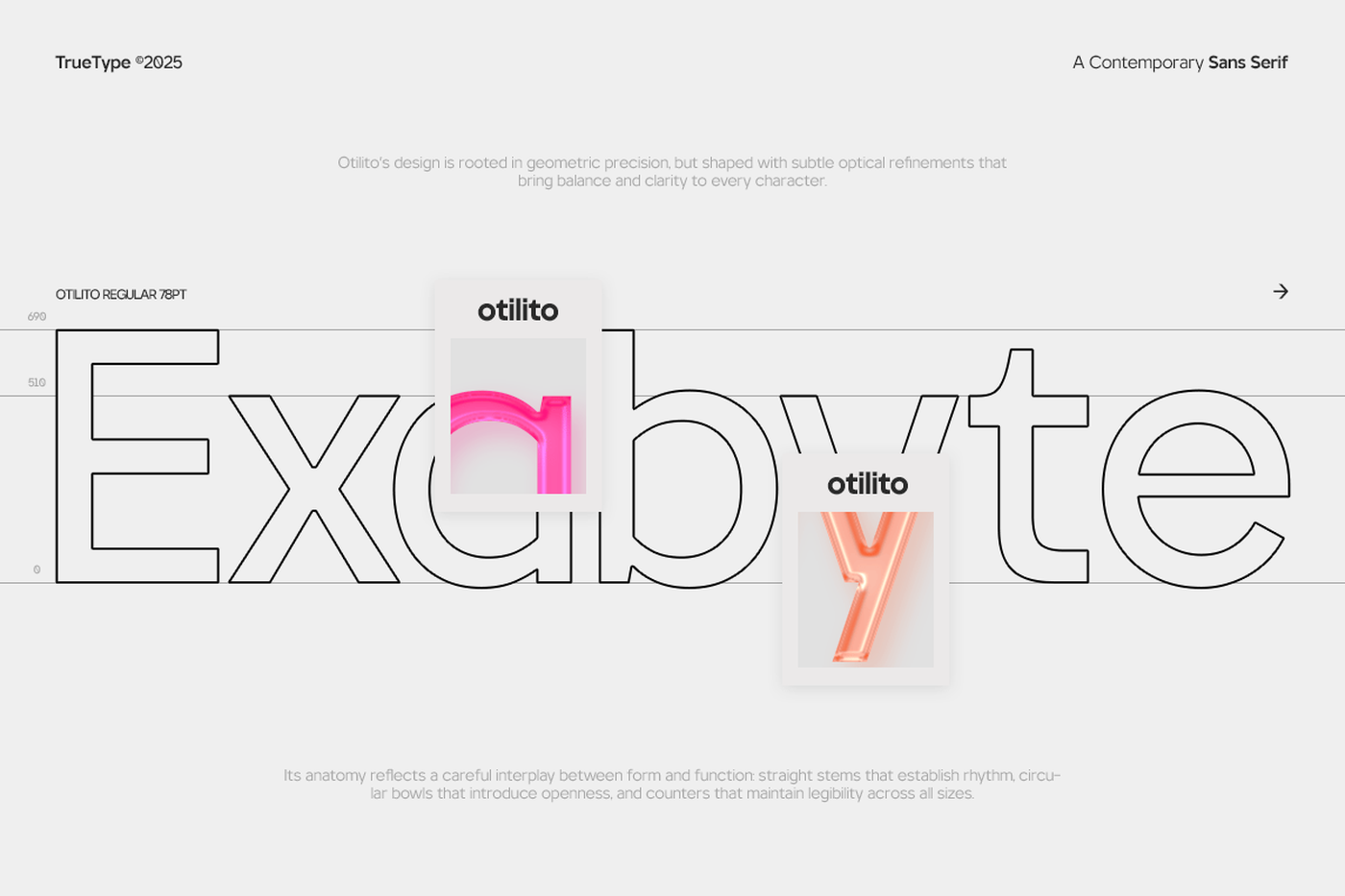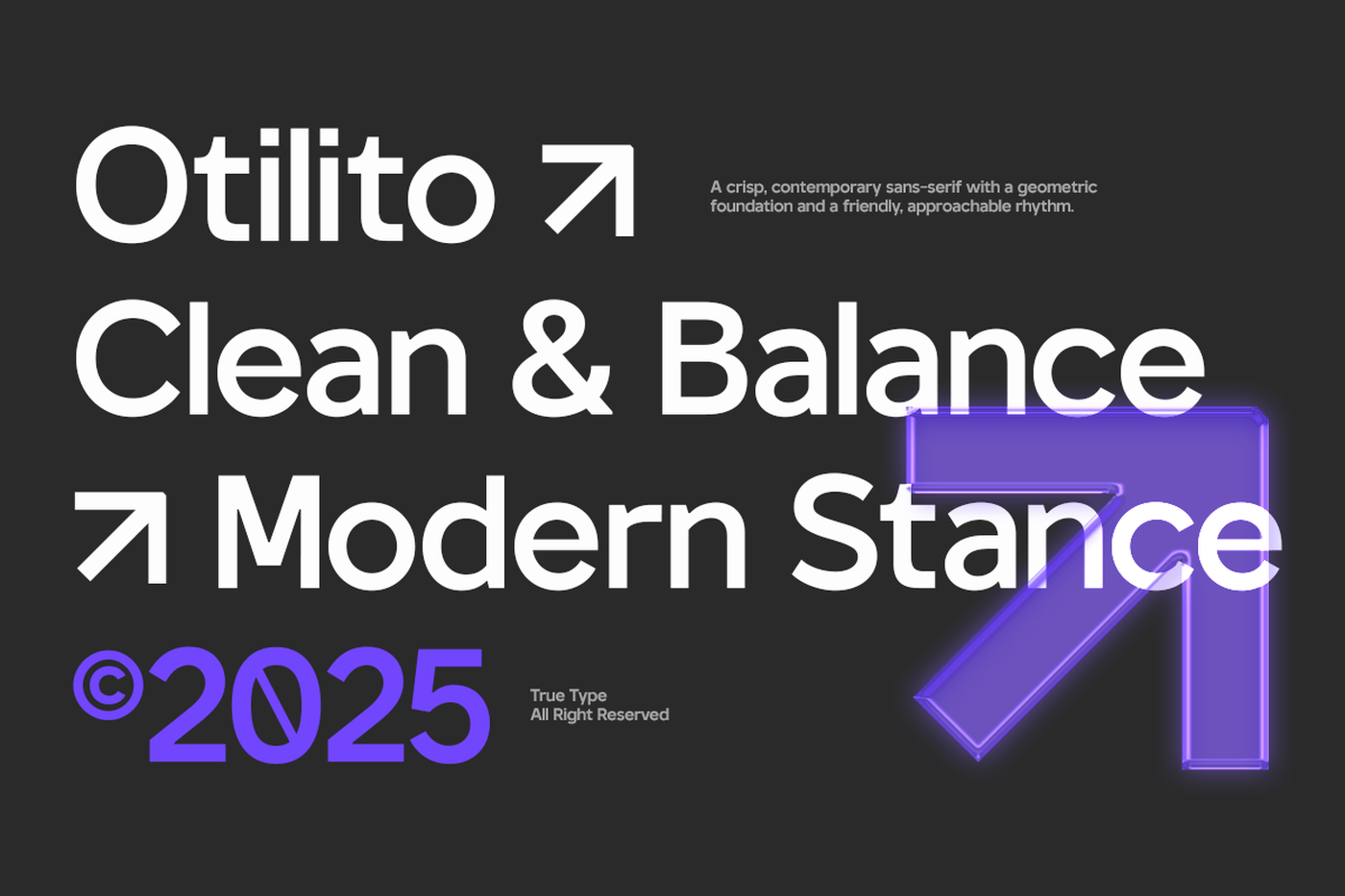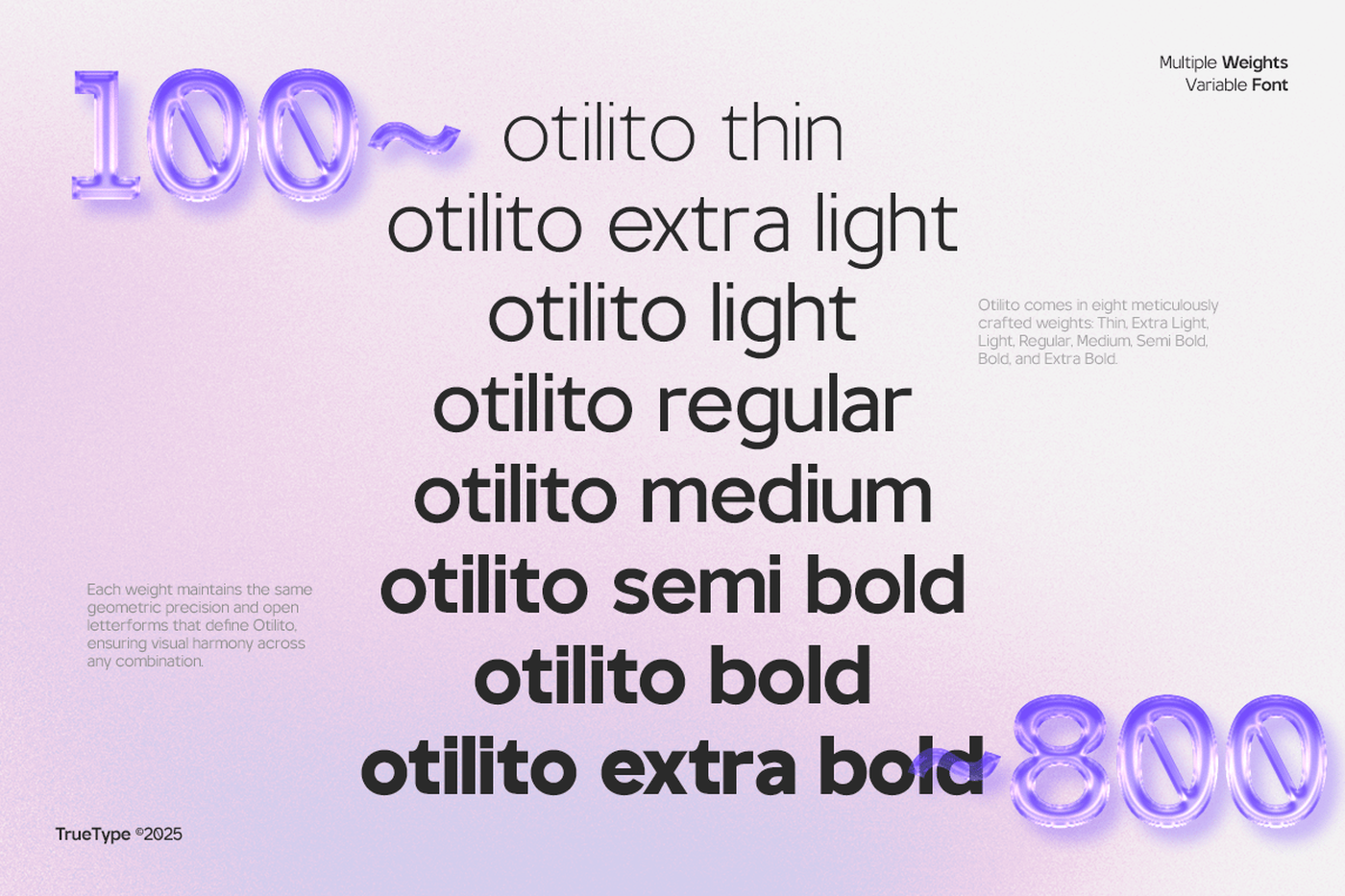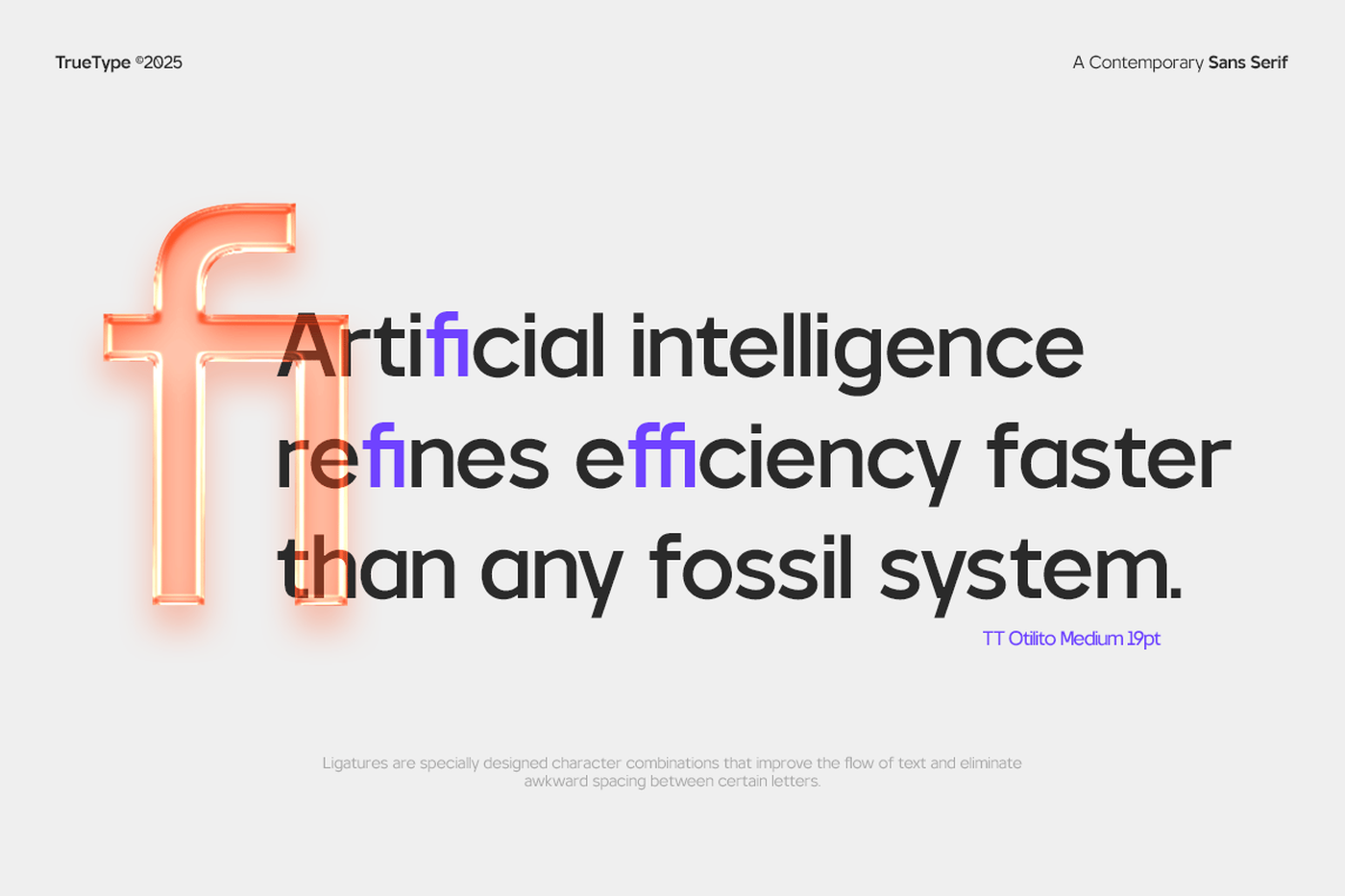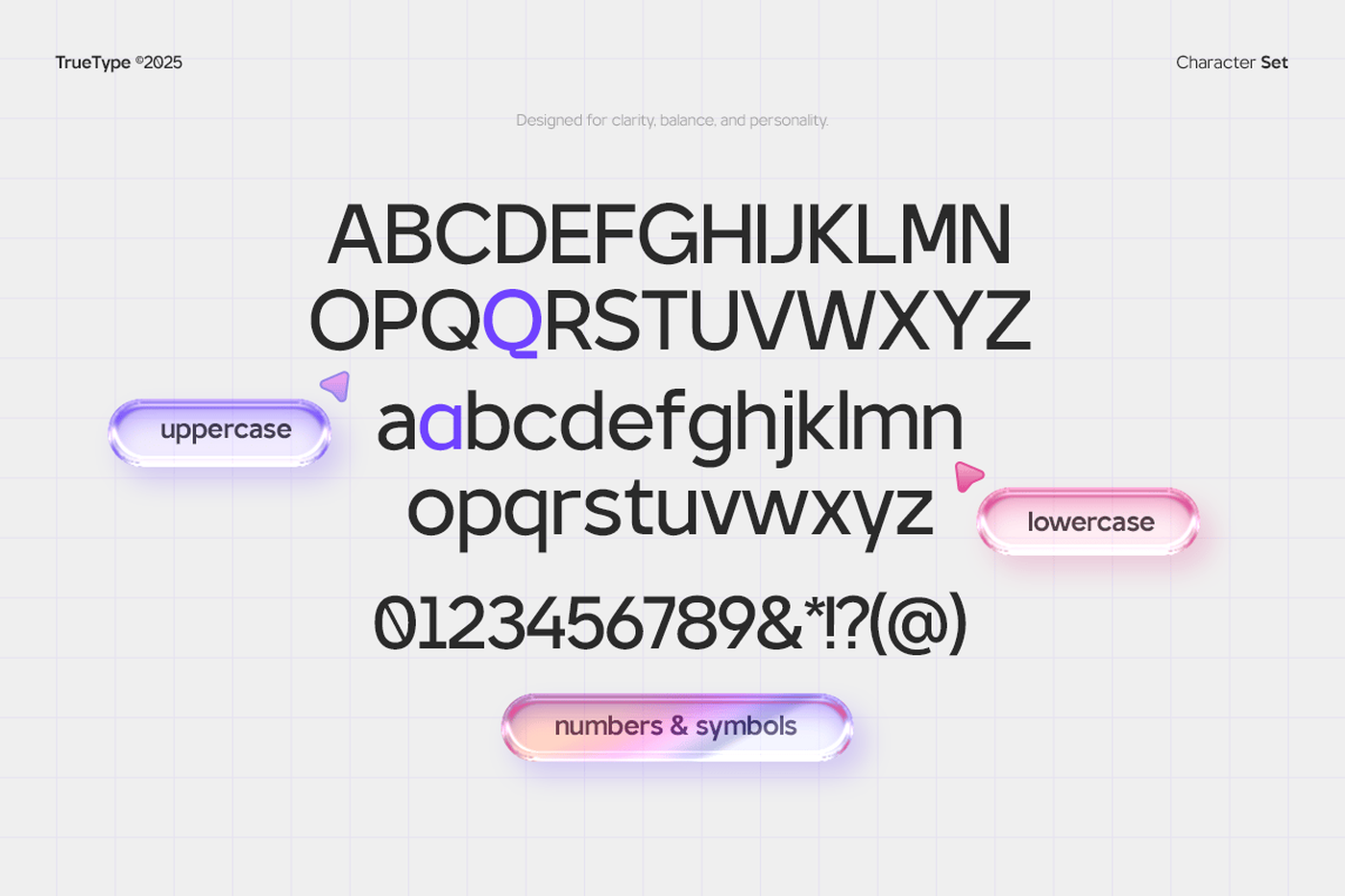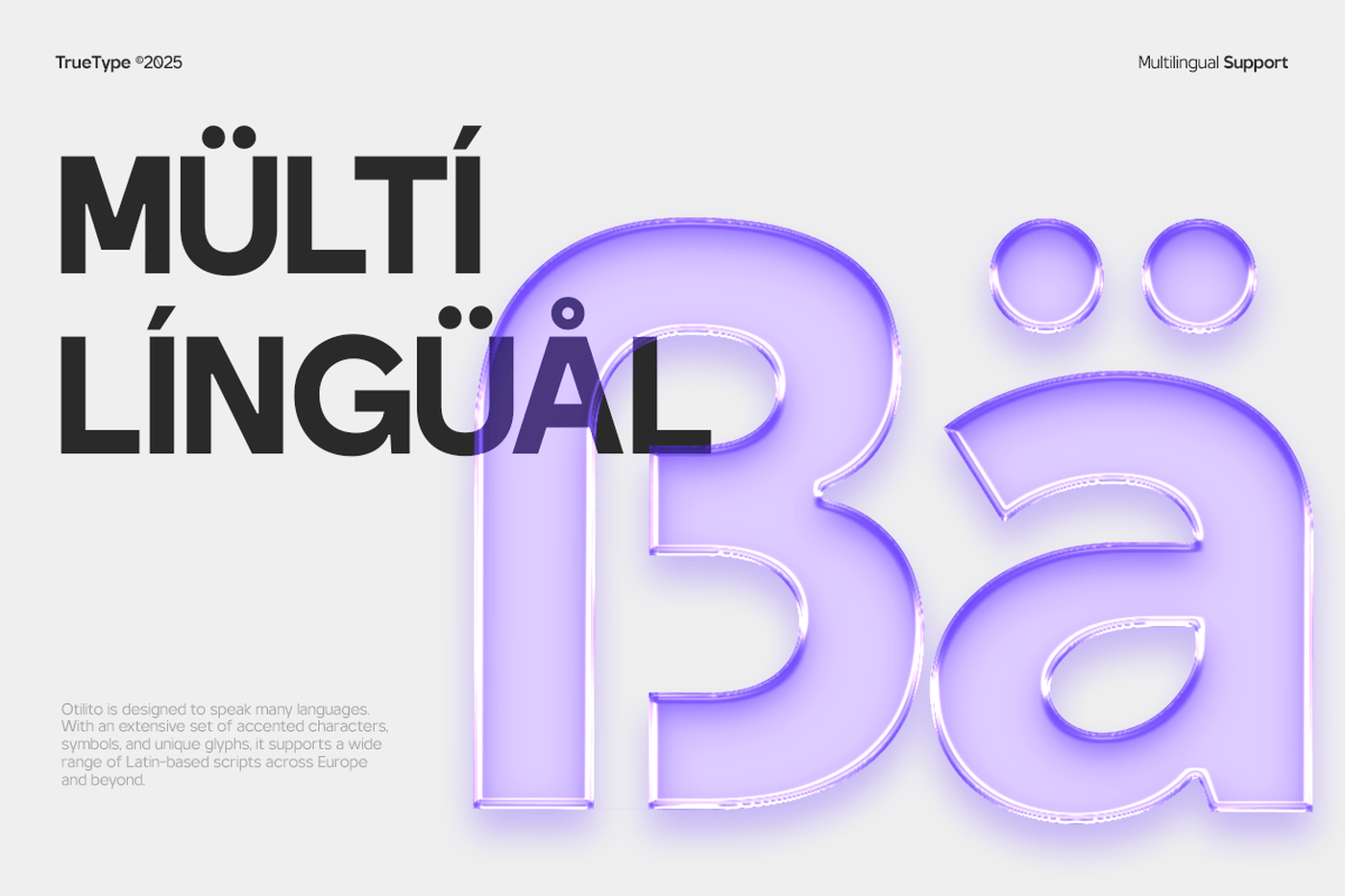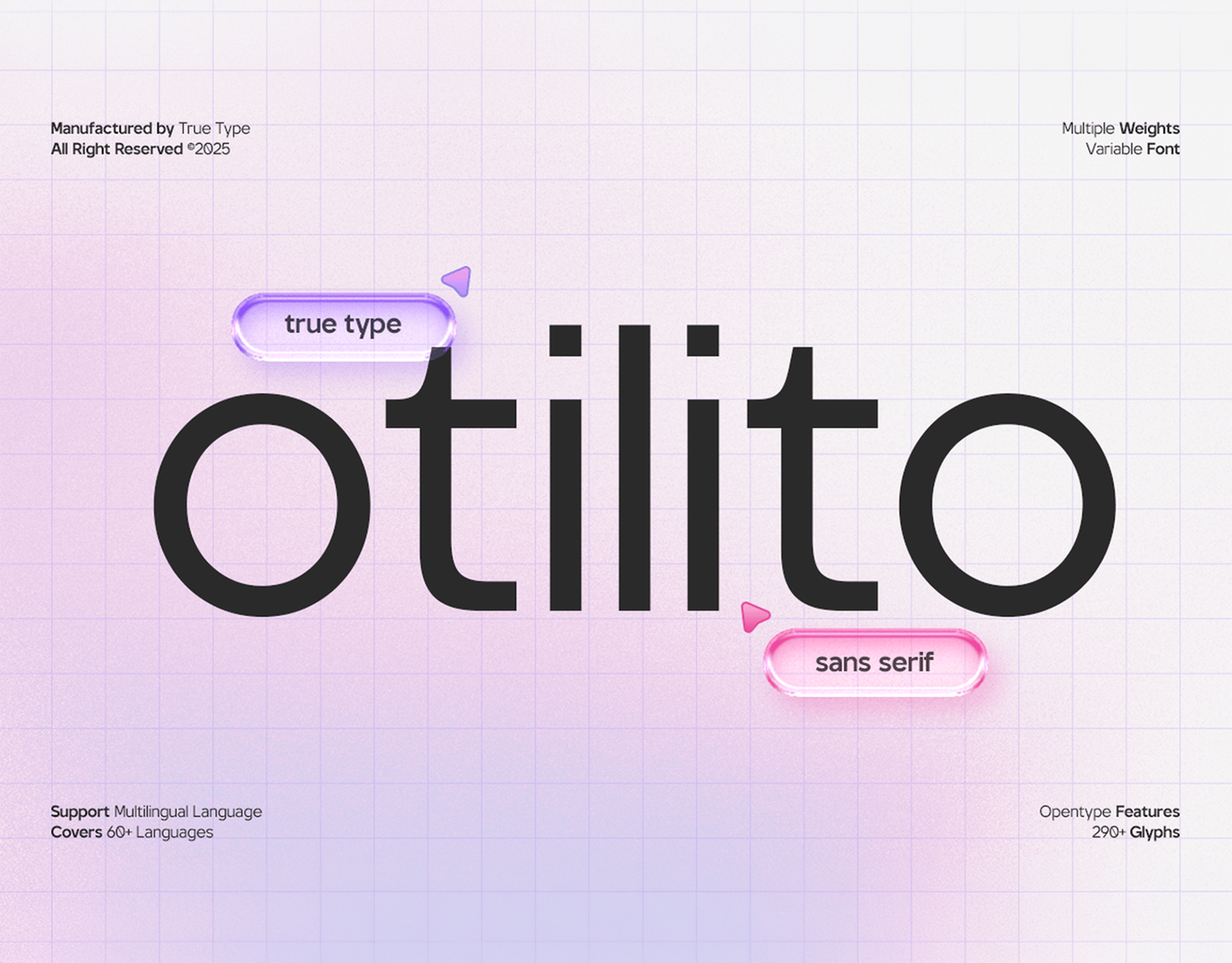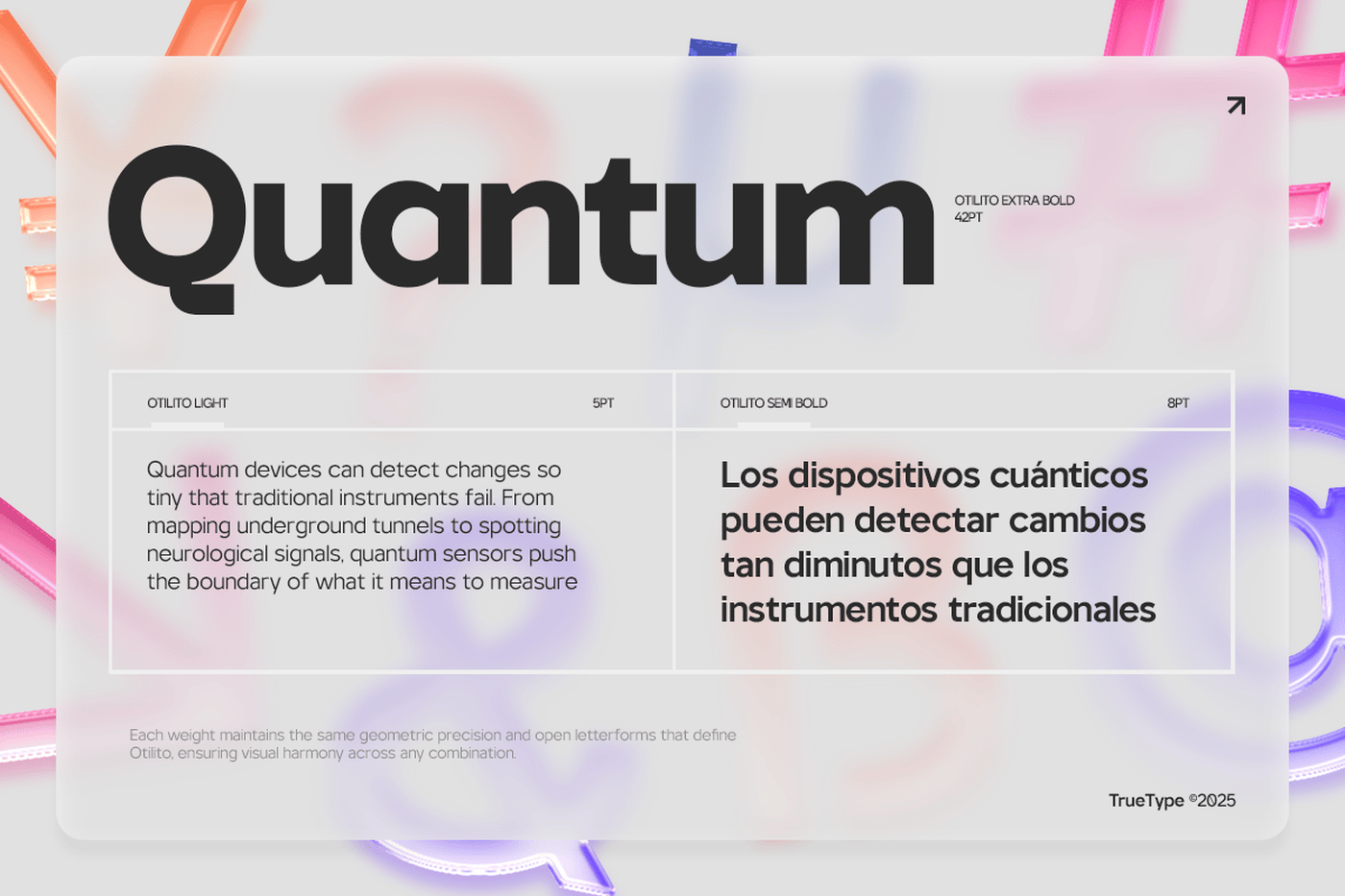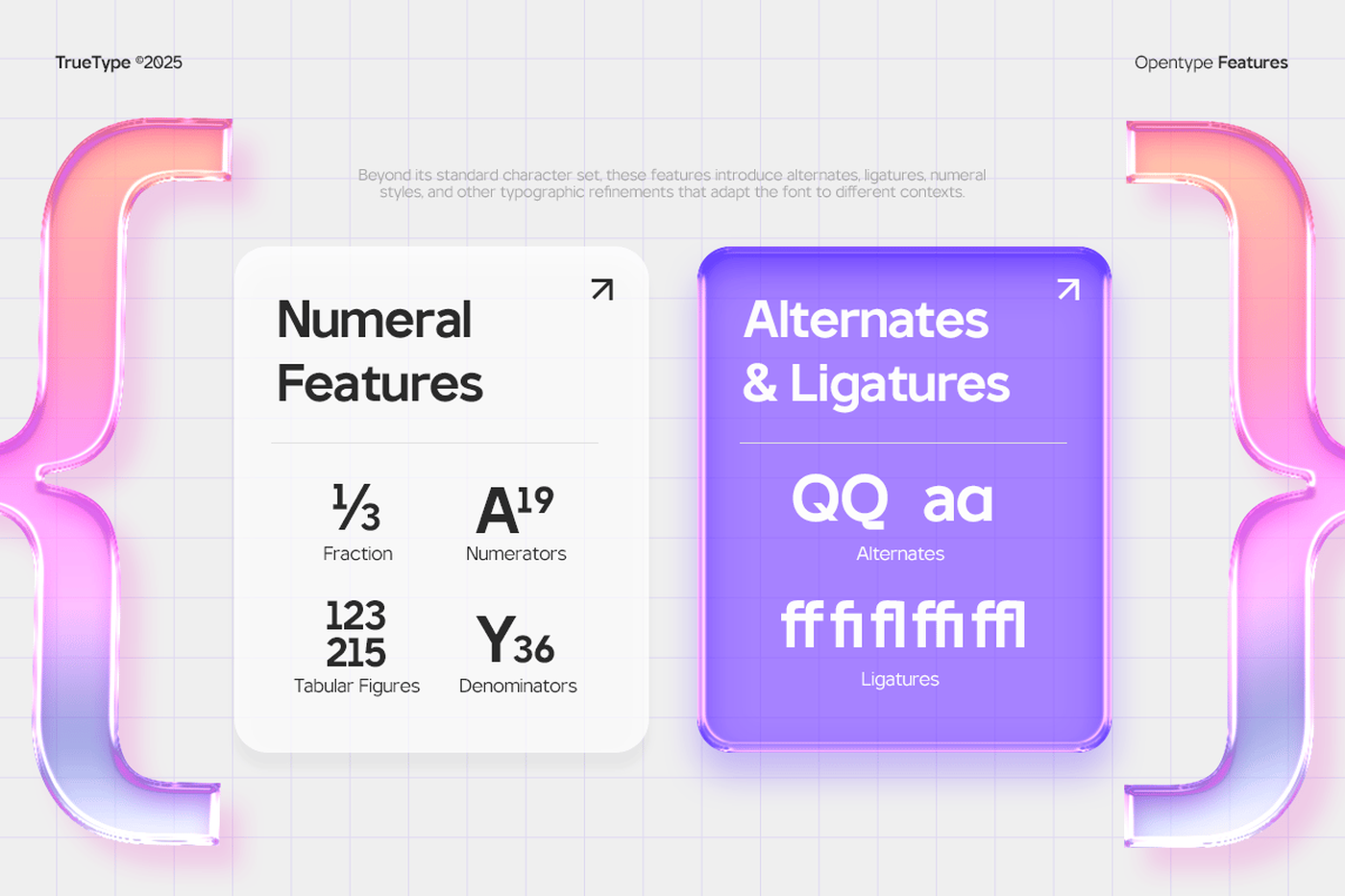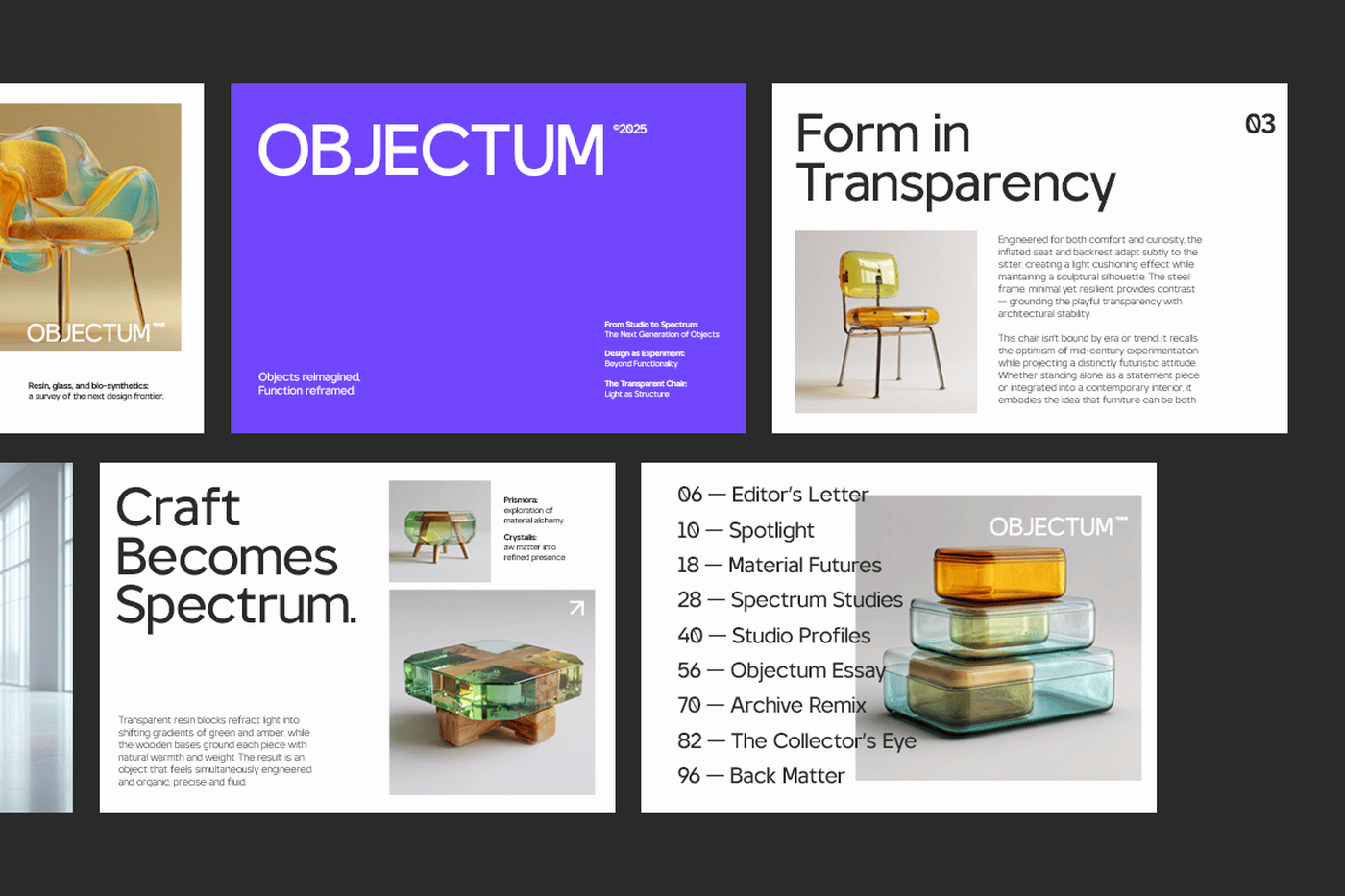
Otilito - Sans Serif Font Family
Otilito is a modern sans serif typeface with semi-grotesque characteristics and a unique personality. Designed to be clean and functional, yet distinctive, it blends geometric balance with subtle quirks that give it charm and flexibility. It’s a highly usable font family, offering multiple weights and styles to support diverse design needs — from branding and editorial work to digital interfaces and packaging. Perfect for visual identities, headlines, logos, magazines, and interfaces, TBJ Otilito delivers clarity without sacrificing character. It's a reliable tool for designers seeking modern aesthetics with a touch of originality.
Designer: Taboja Studio
Font: Otilito